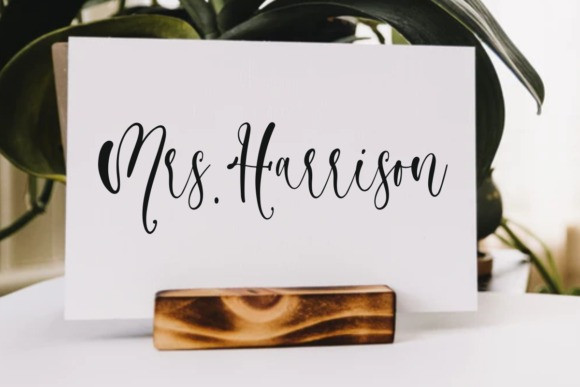
Harmony Family Script Font
Harmony Family is a lovely and beautiful handwritten font. This font is neatly crafted and highly detailed. Whatever the topic, this font will be a wonderful asset to your font library, as it has the potential to enhance any creation.